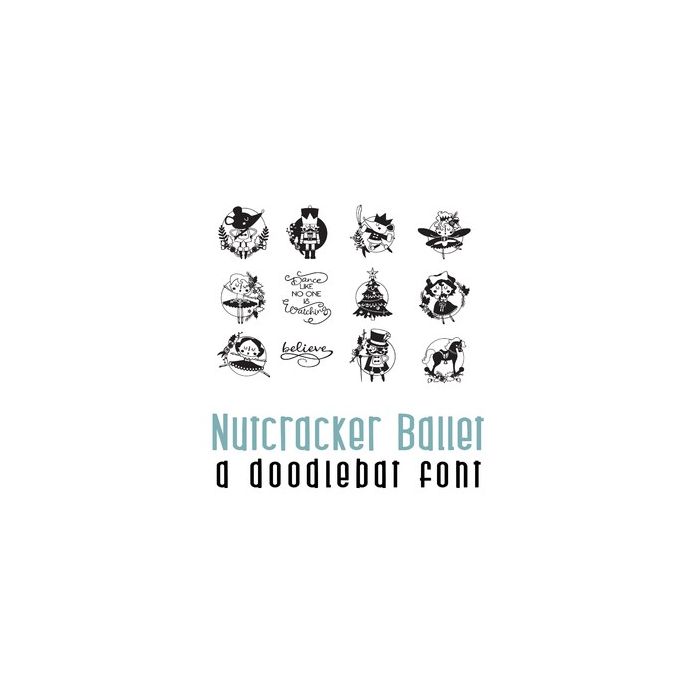
Nutcracker Ballet Doodlebat Font
This fun doodlebat font features 26 adorable nutcracker images. Perfect for cards, gifts, decor, crafts, scrap book pages, planner stickers and more!